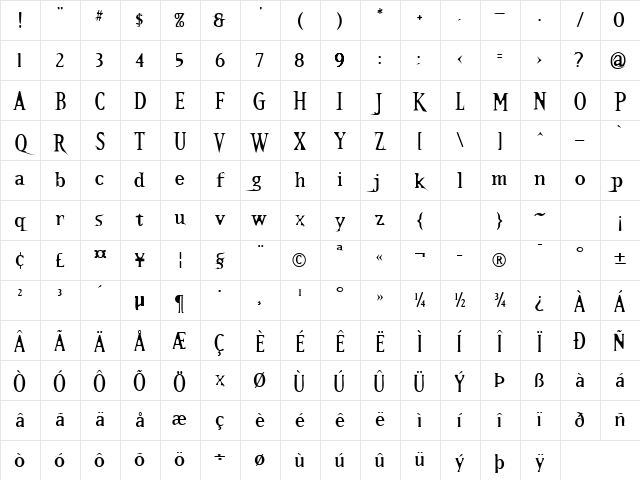
Kallamar Stout Regular
Design Context for Kallamar Stout
Kallamar Stout is a composed and adaptable typeface that performs quietly and consistently across a wide range of design contexts.
Pro Tip: Use Kallamar Stout in both headline and body roles to test its range before committing to a single application.